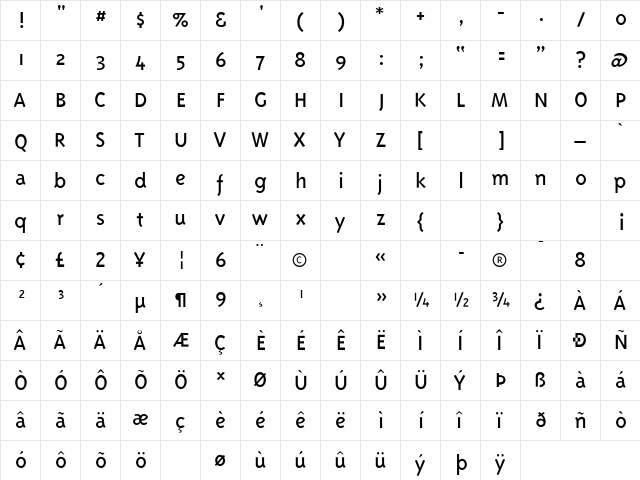
PannikinSSK Regular
Design Context for PannikinSSK Typeface
PannikinSSK takes a measured approach to typography — its balanced proportions and neutral character make it a reliable workhorse for both digital and print work.